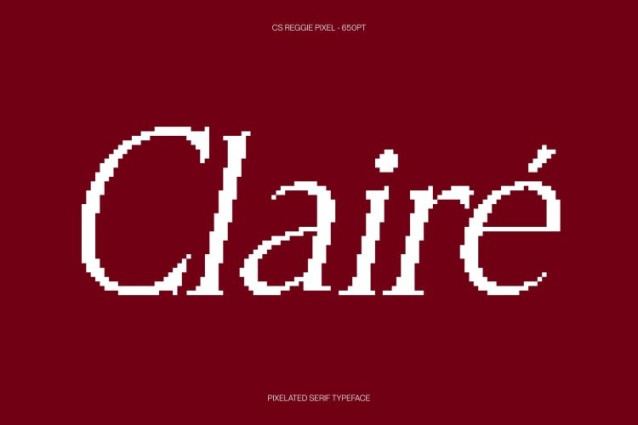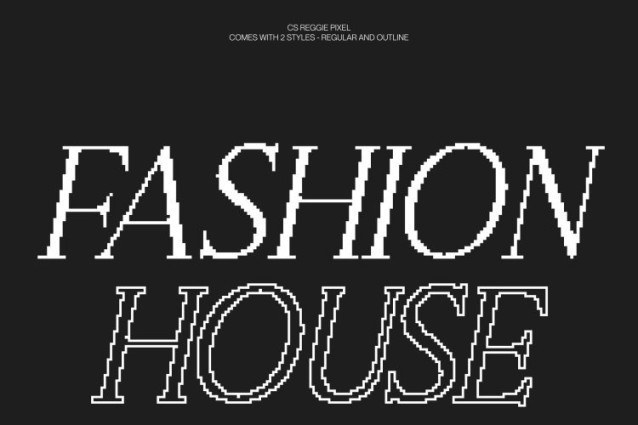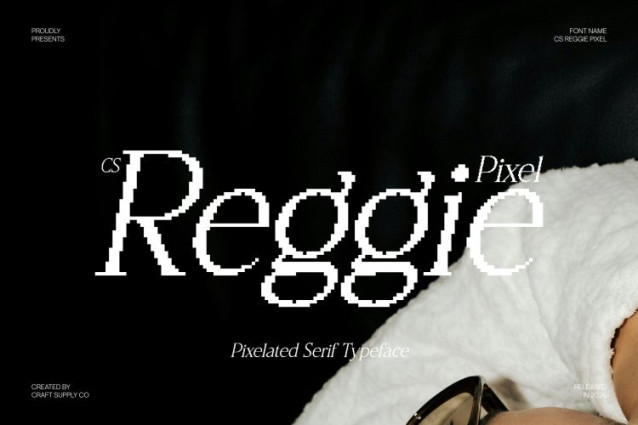
CS Reggie Pixel Font
CS Reggie Pixel Font This is an elegant serif font defined by refined curves and a minimalist structure, reimagined through a subtle pixel aesthetic. Its clean, balanced construction delivers calm sophistication while the pixel treatment adds a modern digital character. Each letterform feels poised and intentional, creating a luxurious visual experience with a contemporary tech edge.
Minimalist Design with Digital Timeless Appeal
The sleek lines and understated pixel geometry enhance clarity without disrupting elegance. This careful balance between softness and structure allows the font to feel timeless yet relevant, making it perfectly suited for both modern digital environments and retro-inspired visual systems.
Perfect for Luxury, Editorial, and Digital Branding
Designed for luxury branding, editorial layouts, and refined visual identities, this font elevates compositions across print and screen. Its pixel style makes it especially striking in digital media, tech-influenced branding, and old-technology inspired designs, while its serif foundation maintains a premium, high-end tone.
A Fusion of Clarity, Class, and Pixel Precision
This font blends minimalist elegance with digital precision, offering a typeface that stands out through restraint rather than excess. Whether used for logos, titles, packaging, or editorial layouts, it delivers a sophisticated, confident, and visually distinctive presence that feels both modern and timeless.